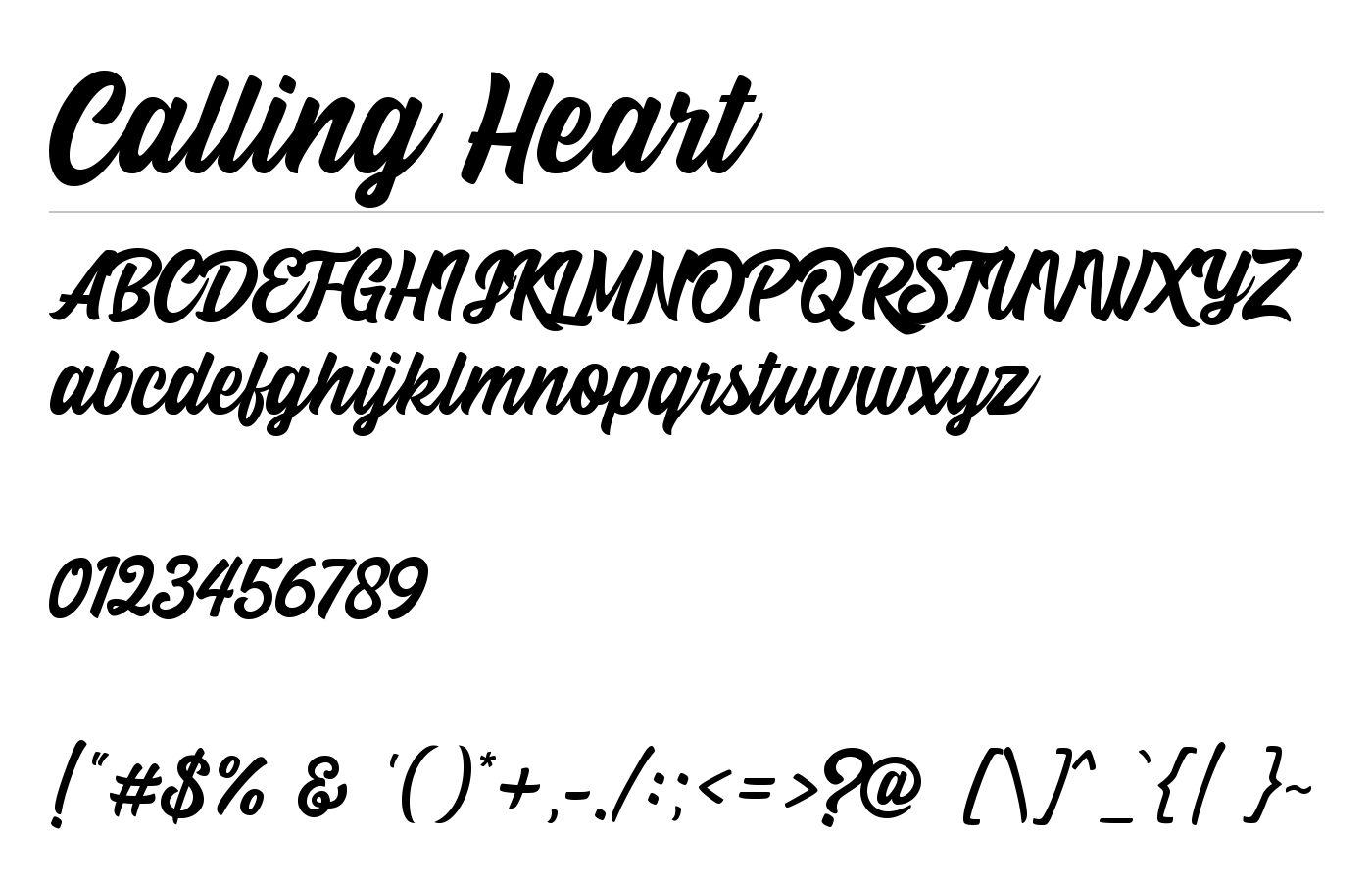
Calling Heart is a bold, script-style font with smooth, flowing strokes that give it an inviting and personal feel. Its slightly condensed letterforms and moderate contrast make it ideal for eye-catching headlines, logos, and branding that aims to convey warmth and friendliness. This font works beautifully in creative projects and packaging where a lively, approachable look is desired.
Calling Heart Font
About Calling Heart Font
| Font family | Calling Heart Font |
| Designer | Lettersiro 2017 |